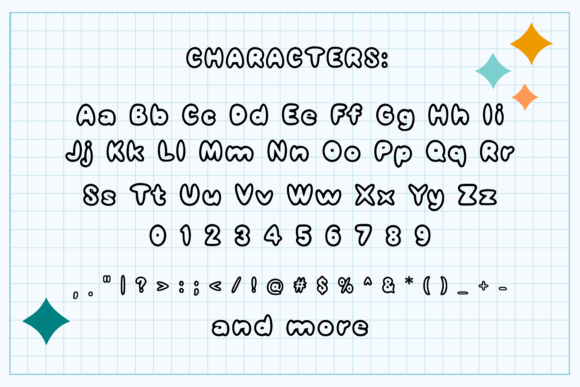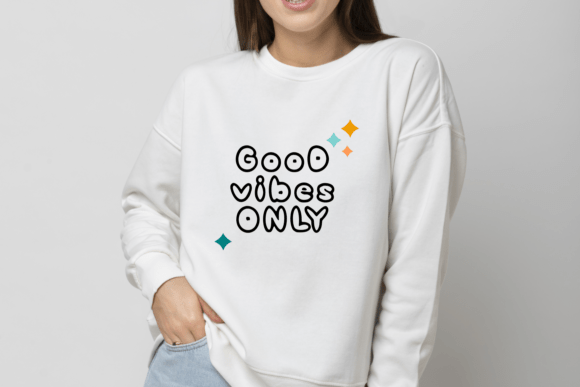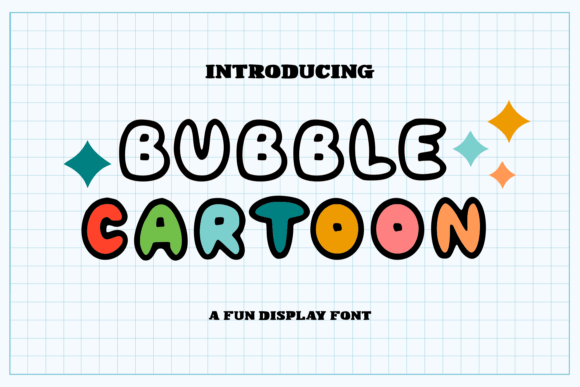
Bubble Cartoon Font: Add a Playful Touch to Your Designs
Are you looking for a font that can bring a dash of fun and personality to your designs? Look no further than the Bubble Cartoon Font! This delightful font is perfect for designers, crafters, and anyone who wants to add a cheerful, cartoonish vibe to their projects. In this article, we’ll explore the features and benefits of the Bubble Cartoon Font and show you how to make the most of this versatile font.
What is Bubble Cartoon Font?
Bubble Cartoon Font is a fun and lively bubble font that bursts with personality! Its round, playful letters and bold style make it perfect for a wide range of projects, from kids’ crafts and comics to posters, party invites, shirts, tote bags, and social media graphics. This font is designed to grab attention and spread smiles, making it an excellent choice for designers who want to create engaging and shareable content.
Key Features of Bubble Cartoon Font
- Playful and Round Letters: The Bubble Cartoon Font features round, playful letters that are sure to bring a smile to your face. Its unique shape and bold style make it perfect for creating eye-catching designs.
- Versatile and Adaptable: This font is incredibly versatile and can be used for a wide range of projects, from digital designs to print materials.
- Kids’ Friendly: The Bubble Cartoon Font is perfect for kids’ projects, including crafts, posters, and party invites.
- Easy to Read: Despite its playful style, the Bubble Cartoon Font is easy to read, making it perfect for headlines, titles, and short paragraphs.
Uses of Bubble Cartoon Font
The Bubble Cartoon Font is perfect for a wide range of projects, including:
- Kids’ Projects: Use the Bubble Cartoon Font to create fun and engaging projects for kids, such as coloring pages, activity sheets, and educational materials.
- Comics and Cartoons: Add a playful touch to your comics and cartoons with the Bubble Cartoon Font.
- Posters and Flyers: Use the Bubble Cartoon Font to create eye-catching posters and flyers for events, promotions, and products.
- Party Invites: Create fun and playful party invites with the Bubble Cartoon Font.
- Merchandise: Use the Bubble Cartoon Font to create fun and playful designs for shirts, tote bags, and other merchandise.
- Social Media Graphics: Add a cheerful, cartoonish vibe to your social media graphics with the Bubble Cartoon Font.
Tips for Using Bubble Cartoon Font
Here are some tips for using the Bubble Cartoon Font:
- Use it for Headlines and Titles: The Bubble Cartoon Font is perfect for headlines and titles, where you want to grab attention and create a playful vibe.
- Experiment with Colors: The Bubble Cartoon Font looks great in bright, bold colors. Experiment with different colors to find the perfect combination for your design.
- Mix it with Other Fonts: The Bubble Cartoon Font can be paired with other fonts to create a unique and interesting design.
- Use it for Kids’ Projects: The Bubble Cartoon Font is perfect for kids’ projects, where you want to create a fun and playful atmosphere.
In conclusion, the Bubble Cartoon Font is a fun and lively font that can add a playful touch to your designs. Its round, playful letters and bold style make it perfect for a wide range of projects, from kids’ crafts and comics to posters, party invites, shirts, tote bags, and social media graphics. With its versatility, adaptability, and ease of use, the Bubble Cartoon Font is an excellent choice for designers and crafters who want to create engaging and shareable content.